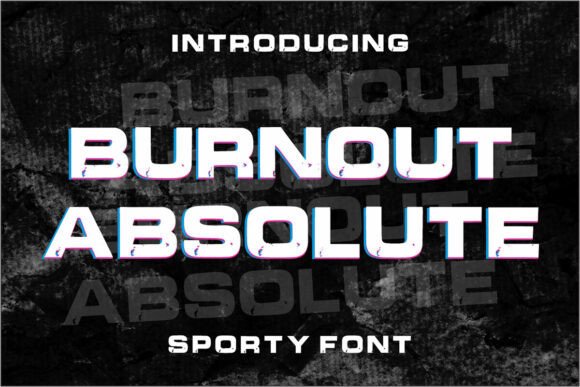
The Ultimate Font for Designers: Burnout Absolute
Have you ever been in the middle of a design project, pouring your heart and soul into it, only to realize that something is off? You’re not quite sure what it is, but the overall vibe just doesn’t feel right. I’ve been there, and it’s frustrating. Often, the culprit is the font choice. You need something that captures the essence of your project, but finding that perfect font can be like searching for a needle in a haystack. That’s where Burnout Absolute comes in – a display font that screams sport and racing, with a casual and easy-to-read character that’s perfect for a wide range of projects.
A Personal Encounter with Burnout Absolute
I first stumbled upon Burnout Absolute while working on a client project that required a bold, energetic font. The client wanted something that would evoke the thrill of racing and the freedom of the open road. I was skeptical at first, but after giving Burnout Absolute a try, I was hooked. Its unique blend of sporty and casual elements made it the perfect fit for the project. The client loved it, and I loved how easy it was to work with.
An Honest Review of Burnout Absolute
- ✨ Sporty and Energetic Vibe: Burnout Absolute has a distinctive sporty feel that makes it perfect for projects that require a bold, energetic look.
- ✅ Easy to Read: Despite its bold nature, Burnout Absolute is surprisingly easy to read, making it suitable for a wide range of projects, from posters to digital displays.
- 💥 Highly Versatile: Whether you’re working on a racing-themed project or just need a font that exudes energy and excitement, Burnout Absolute is a great choice.
While Burnout Absolute is an excellent font, it’s not without its quirks. For example:
- 🤔 Limited Use in Formal Contexts: Due to its sporty nature, Burnout Absolute may not be the best choice for formal projects or those that require a more professional tone.
- ⚠️ Overuse of OpenType Features: While Burnout Absolute’s OpenType features are a major selling point, overusing them can make the text look cluttered and overwhelming.
The Designer Inspiration Behind Burnout Absolute
Burnout Absolute was designed with the thrill of racing in mind. The designer, inspired by the speed and energy of motorsports, created a font that captures the essence of this exciting world. With its bold, sporty character, Burnout Absolute is perfect for projects that require a dynamic, attention-grabbing look.
Q: What type of projects is Burnout Absolute best suited for?
A: Burnout Absolute is perfect for projects that require a sporty, energetic vibe, such as racing-themed posters, digital displays, and marketing materials.
Q: Is Burnout Absolute suitable for body text?
A: While Burnout Absolute is a great font, it’s not ideal for body text due to its bold, sporty nature. It’s better suited for headlines, titles, and other display text.